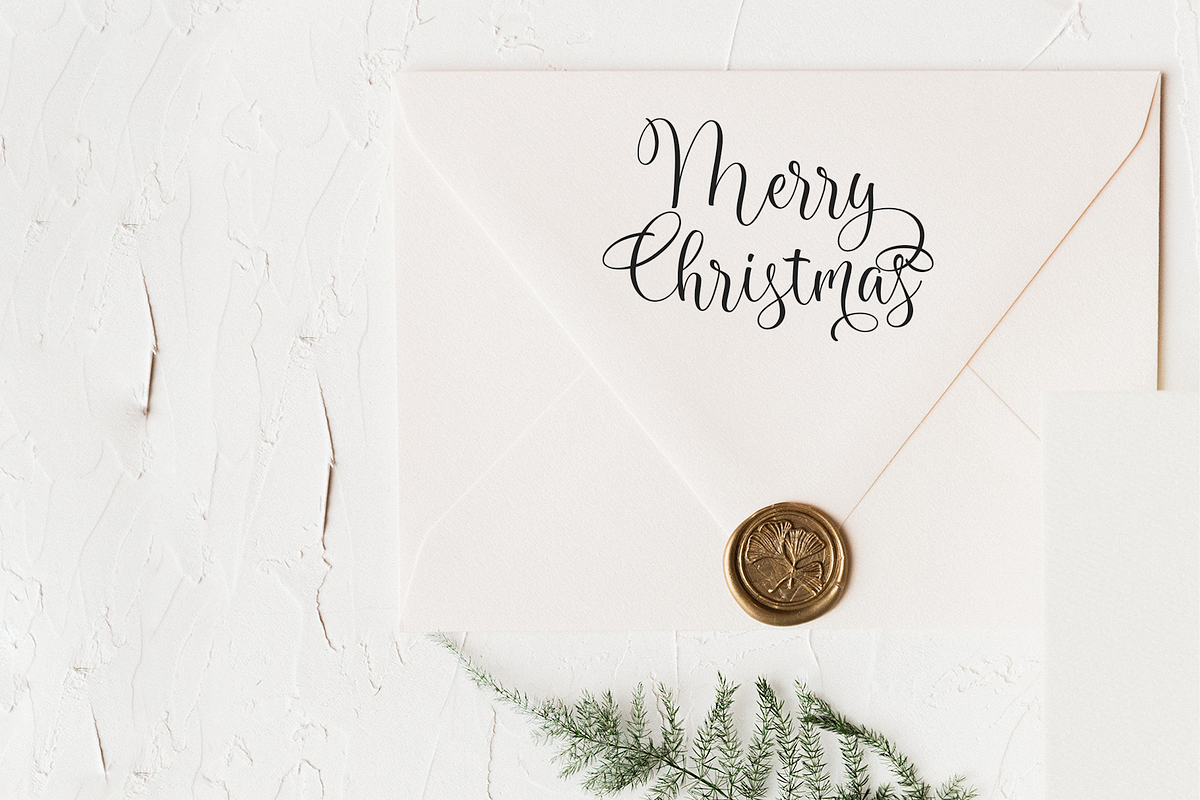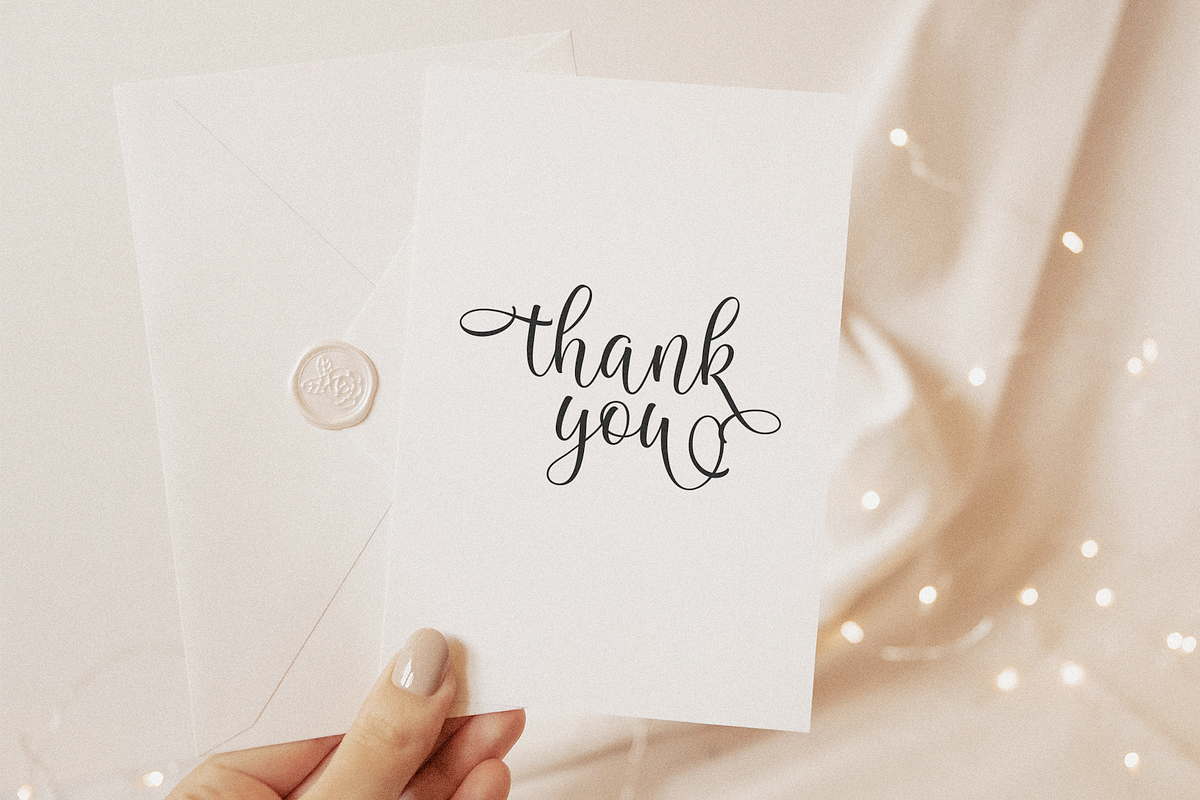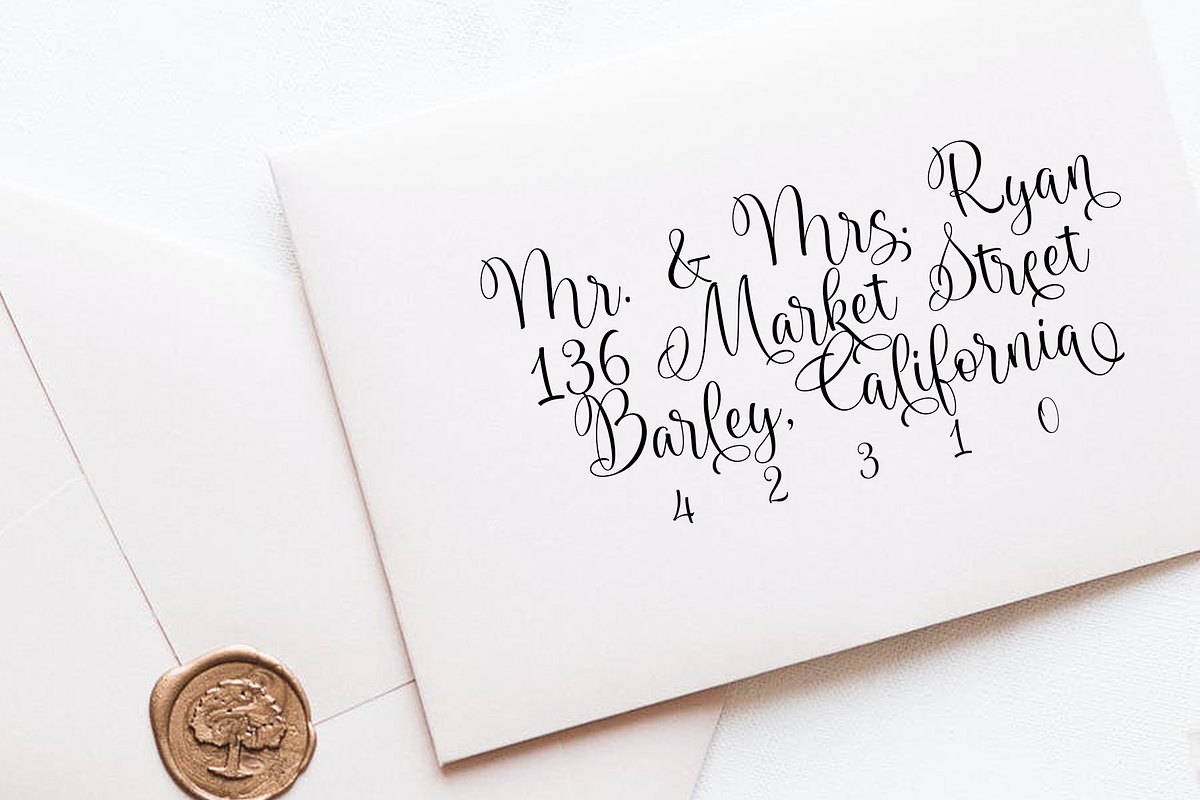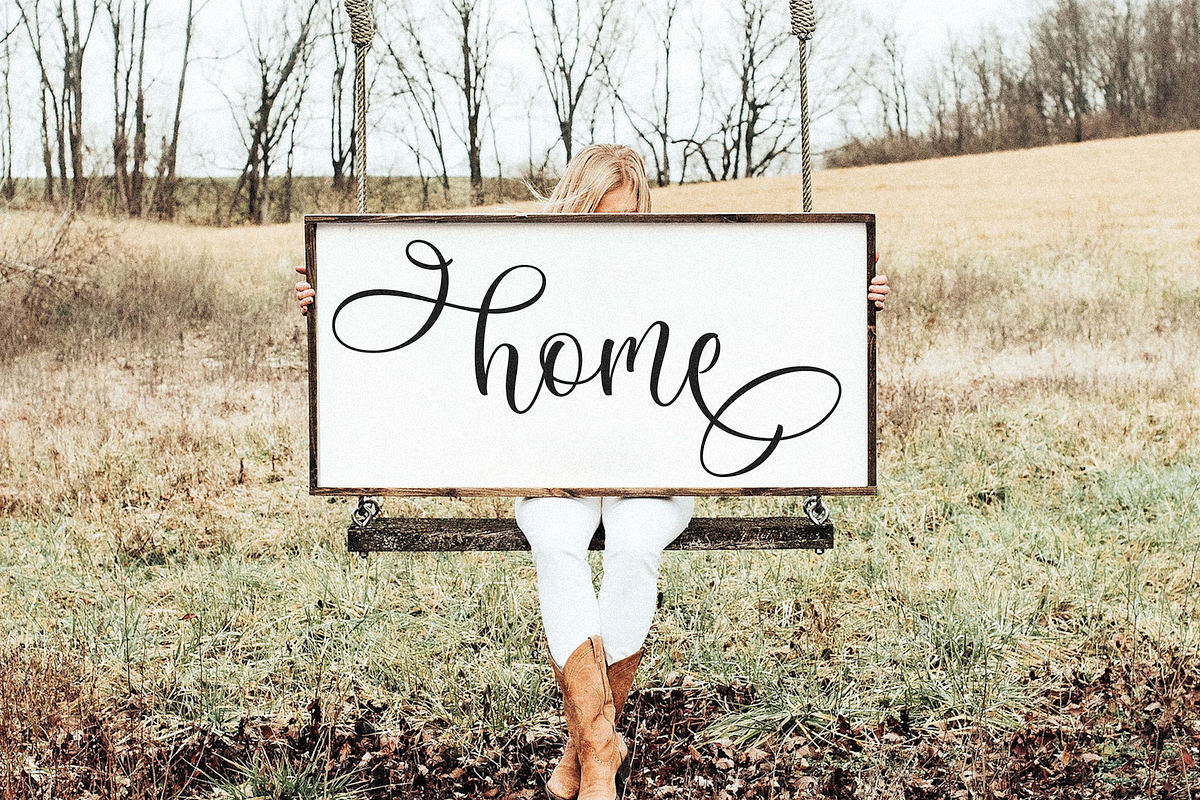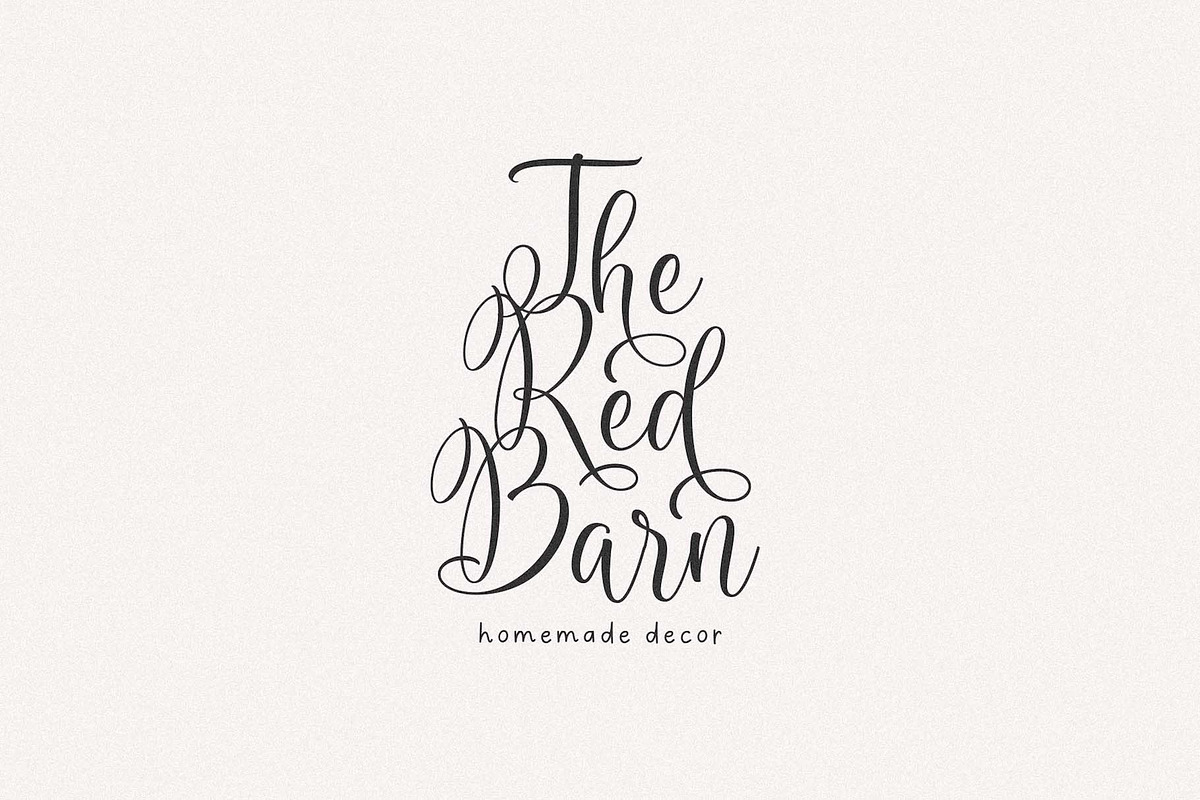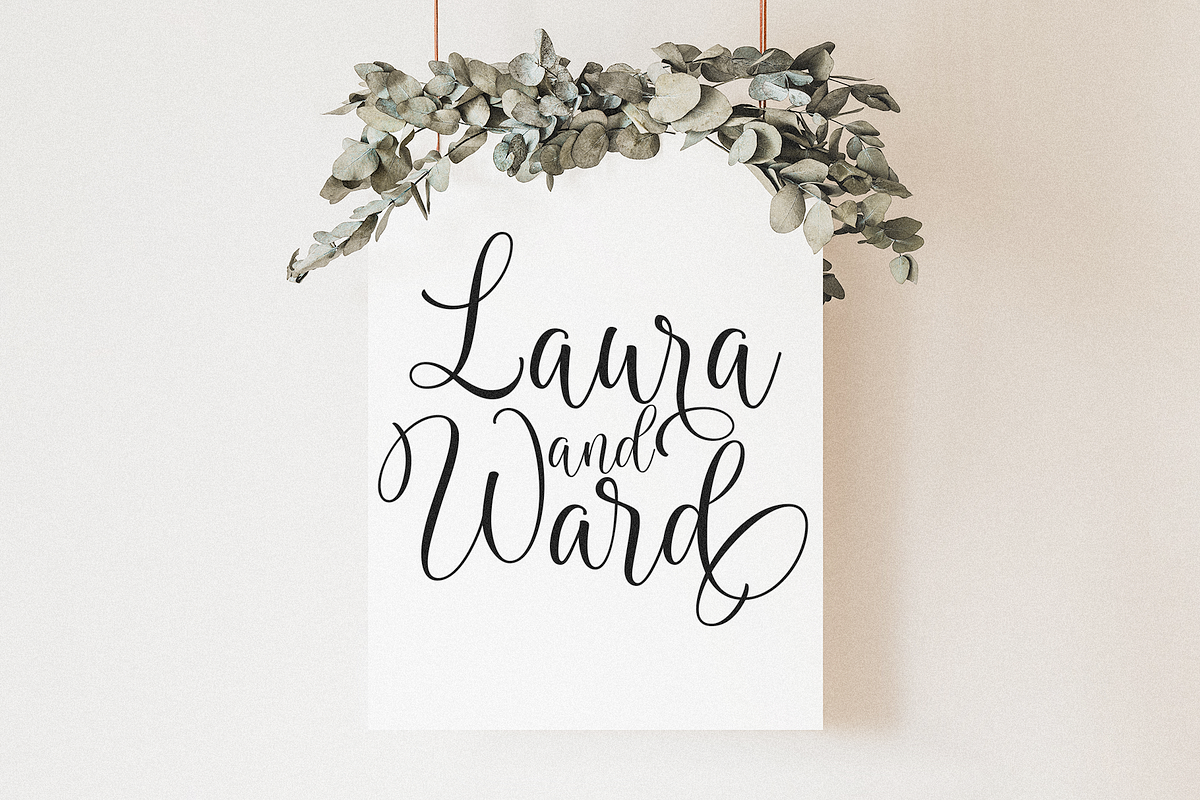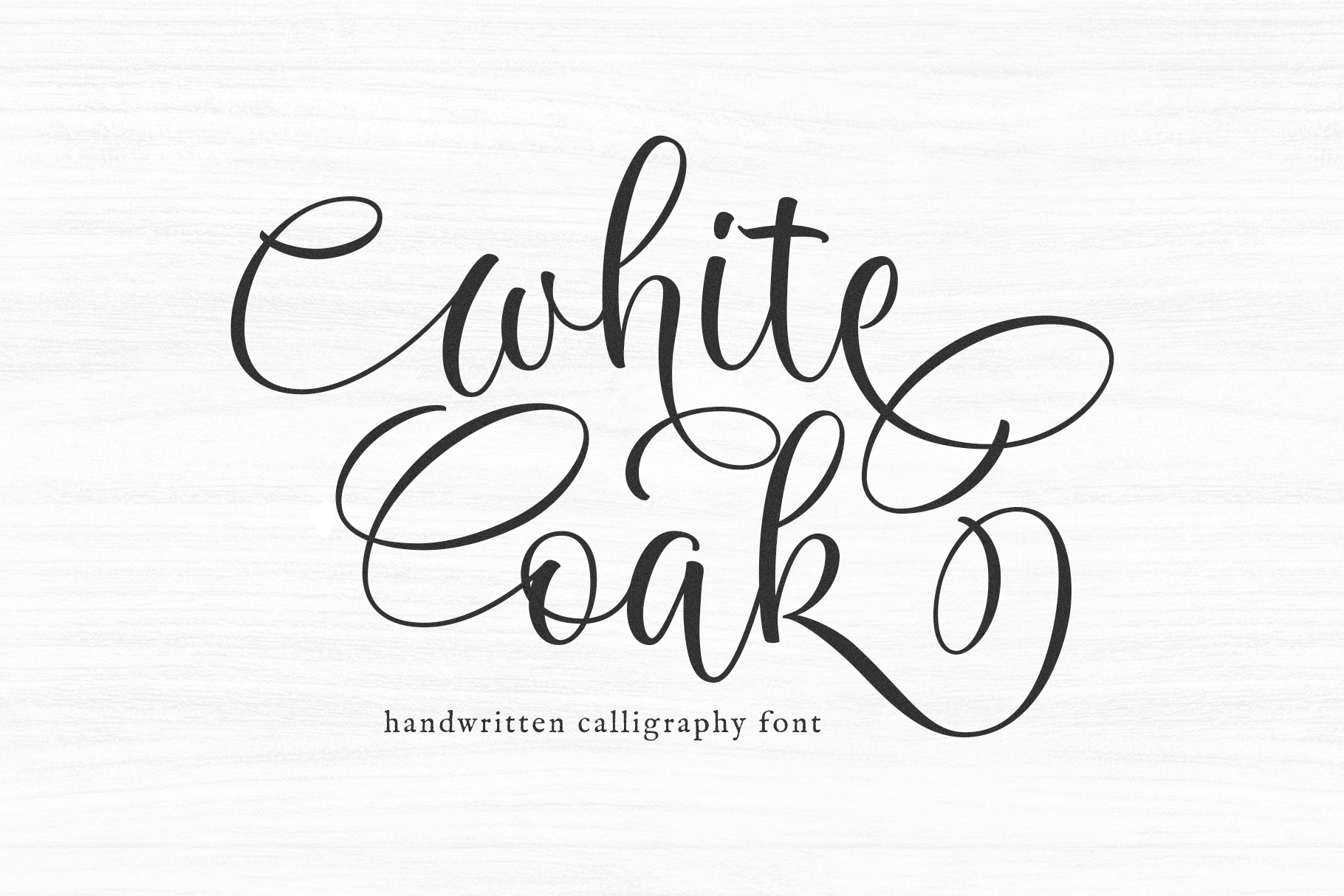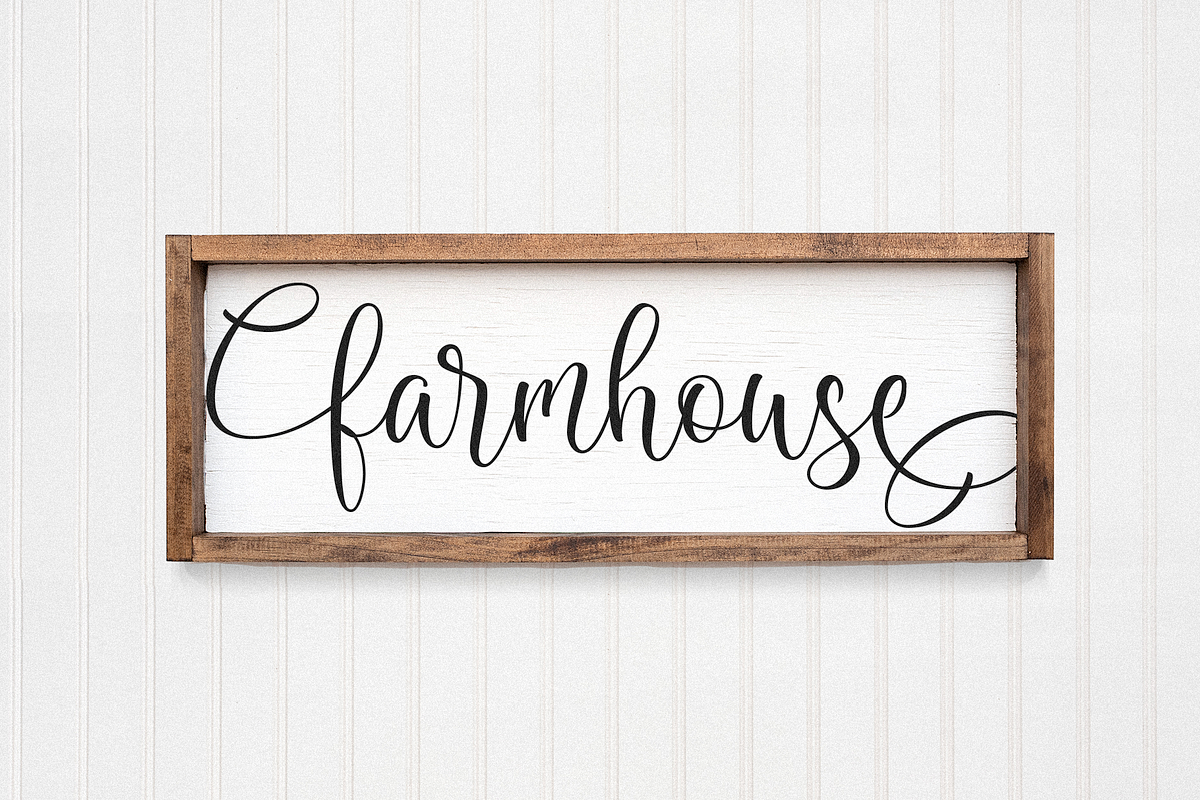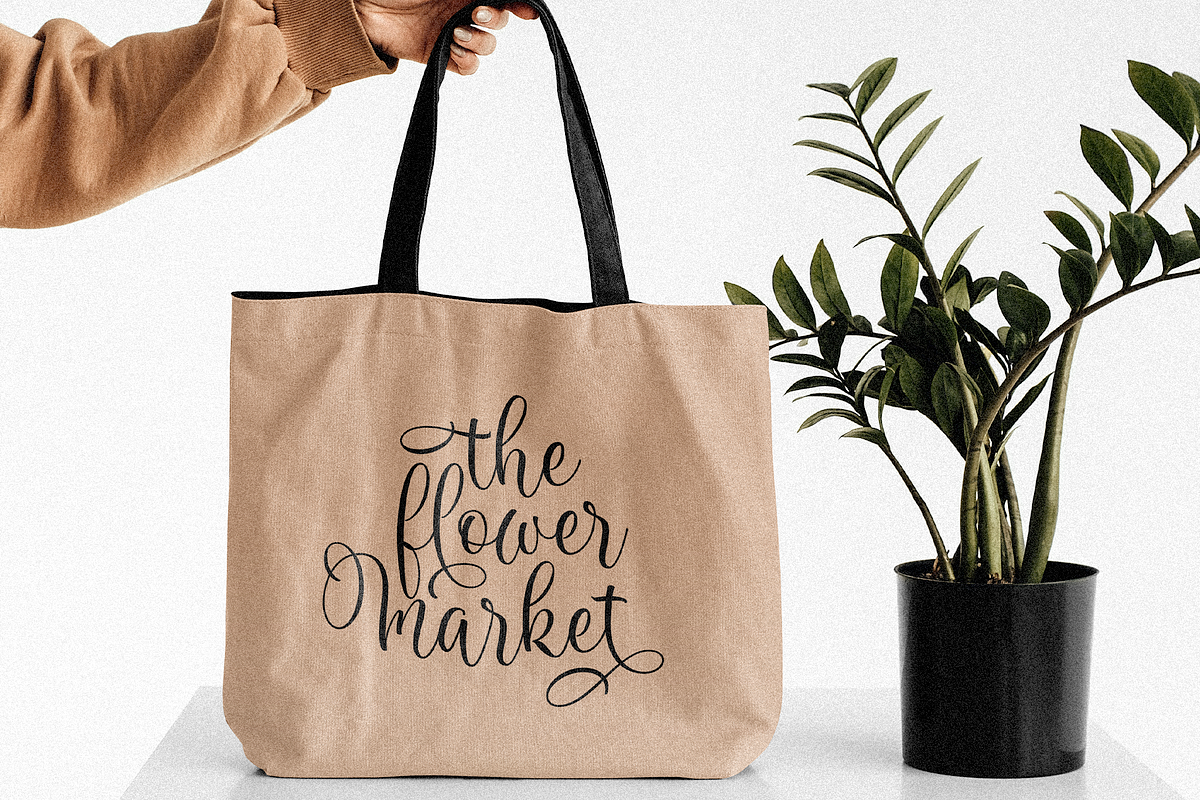
White Oak | Script Font with Swashes
White Oak is a handwritten script font with a ton of fun alternates!
This font is perfect for all of your farmhouse designs, country decor, svg designs, craft projects, logos, shirts, signs, quotes, social media, and more!